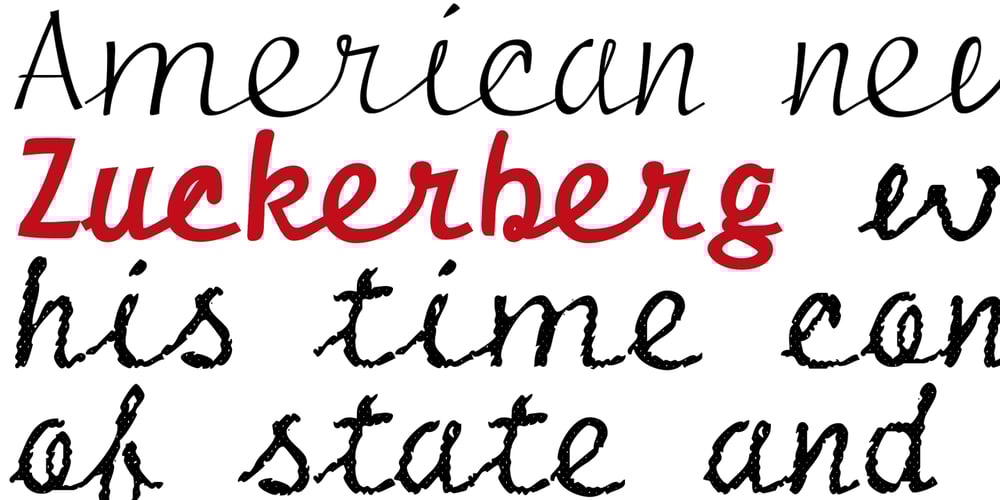
DF Pigtail Font Family was designed by Ko Sliggers and published by Dutchfonts. DF Pigtail contains 6 styles and family package options. DF Pigtail is the result of a curious marriage of the ‘free’-form of writing with the fixed (mono) space for each character of the typewriter typeface. In the early sixties of the last century, typewriter typography became popular as a Fluxus vocabulary. The Fluxus art movement (in fact a Dada like follow up) which encouraged a do it yourself aesthetic, and valued simplicity over complexity and anti commercialism over the conventional market-driven approach. I was educated in the mid seventies when this form of typography was still very popular and was even applied in corporate design. This particular letter has been used by my teacher Jan Begeer to compose his design assignments. Recently I rediscovered this type and was struck by its pigtail similarity and drew it my way.